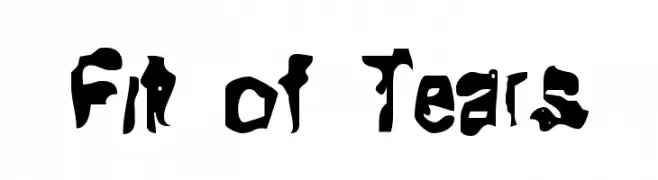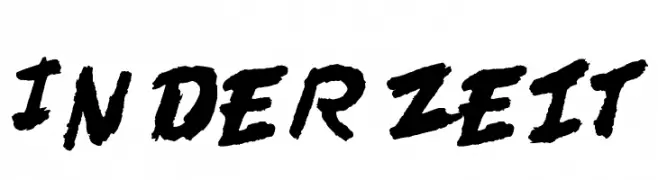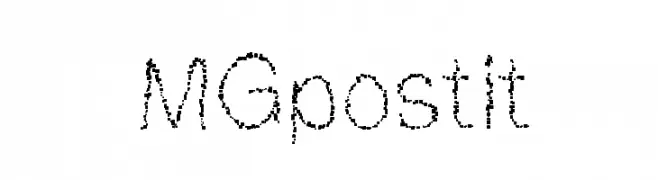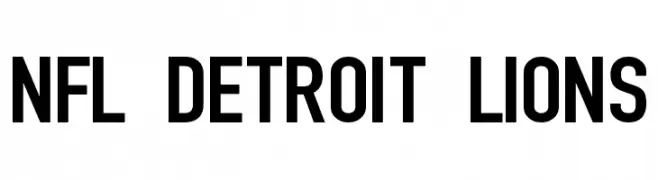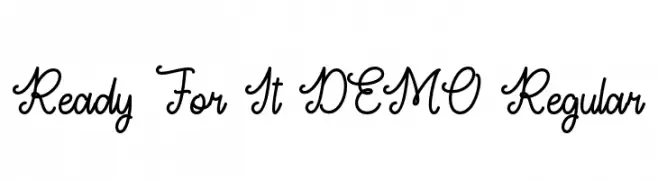
( Chris Vile - www.chrisvile.com )
A bold, angular font with a distressed texture, perfect for impactful designs.
( Chris Vile - www.chrisvile.com )
A bold, distressed font with sharp, angular edges and a rugged aesthetic.
( Font Emporium - web.archive.org/web/20020126112915/www.fontemporium.com/ )
A bold, high-contrast font with sharp serifs and angular lines, ideal for dramatic designs.
( Gyrl Friday - katgyrl.com/fonts/ )
A bold, artistic font with irregular, fluid shapes resembling ink blots.
( LJ Design Studios - www.ljdesignstudios.com )
A bold, brush-style font with a dynamic and energetic appearance.
( London's Letters - www.londonsletters.com/ )
A bold, decorative font with a cheerleader theme, perfect for energetic and playful designs.
( Misti's Fonts - mistifonts.com/ )
A playful and elegant script font with a handwritten style.
( Monroe Greco )
A textured, stippled font with a handcrafted, artistic feel.
( NFL Fonts )
A bold, modern font with a strong geometric structure and clean lines.
( SprayOnDog - oh-sheesh-yall-twas-a-dream.tumblr.com/ )
A playful, handwritten font with an informal and friendly style.